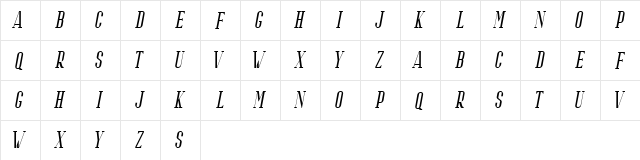
Riffle Free Italic
Design Context for Riffle Free Typeface
Riffle Free offers clean, dependable letterforms without strong stylistic allegiance, making it a practical choice for designers who need flexibility. The slanted form adds forward momentum and visual energy.
Pro Tip: Try Riffle Free for annotation and caption copy alongside an upright companion — the contrast in angle creates a dynamic but ordered typographic system.